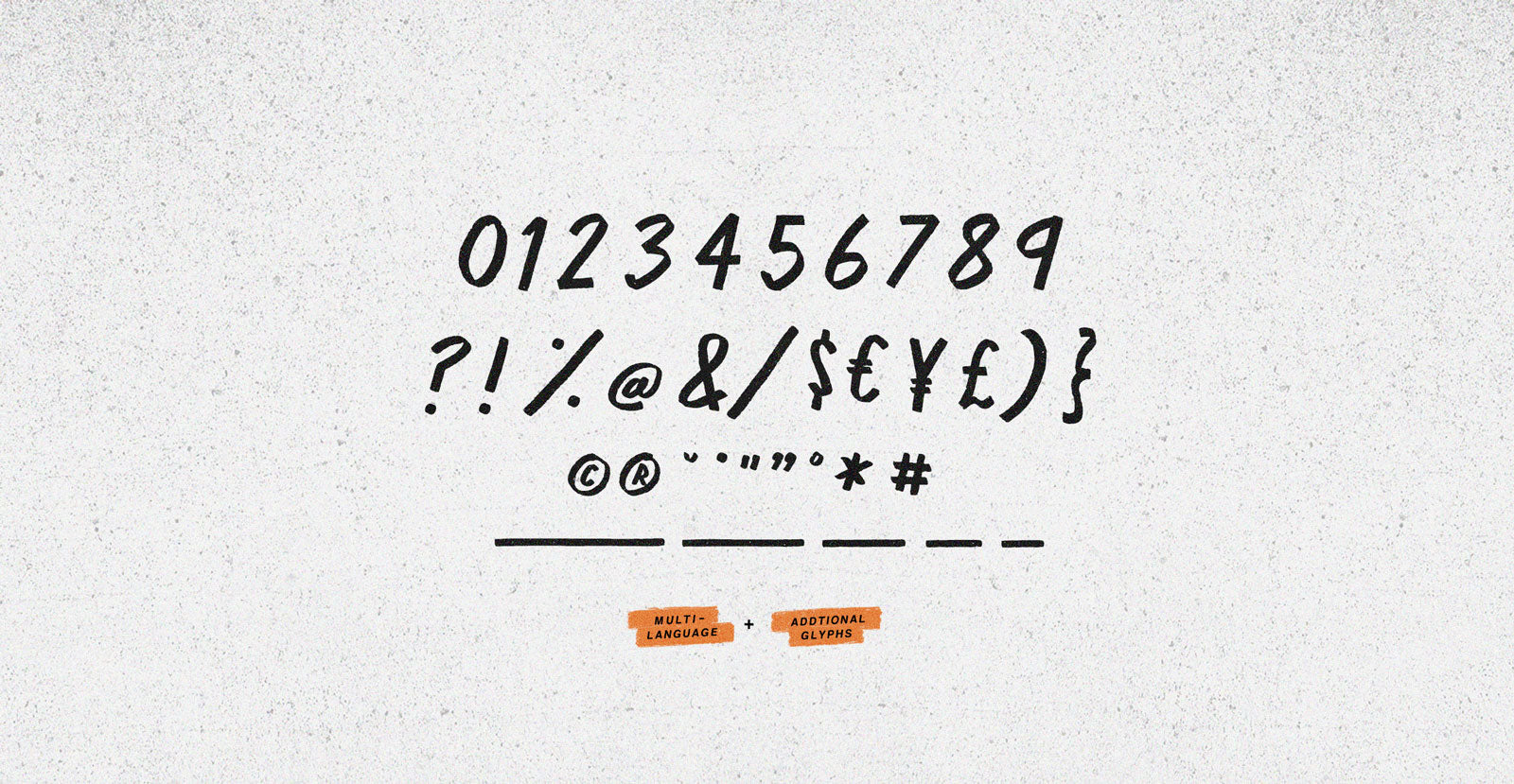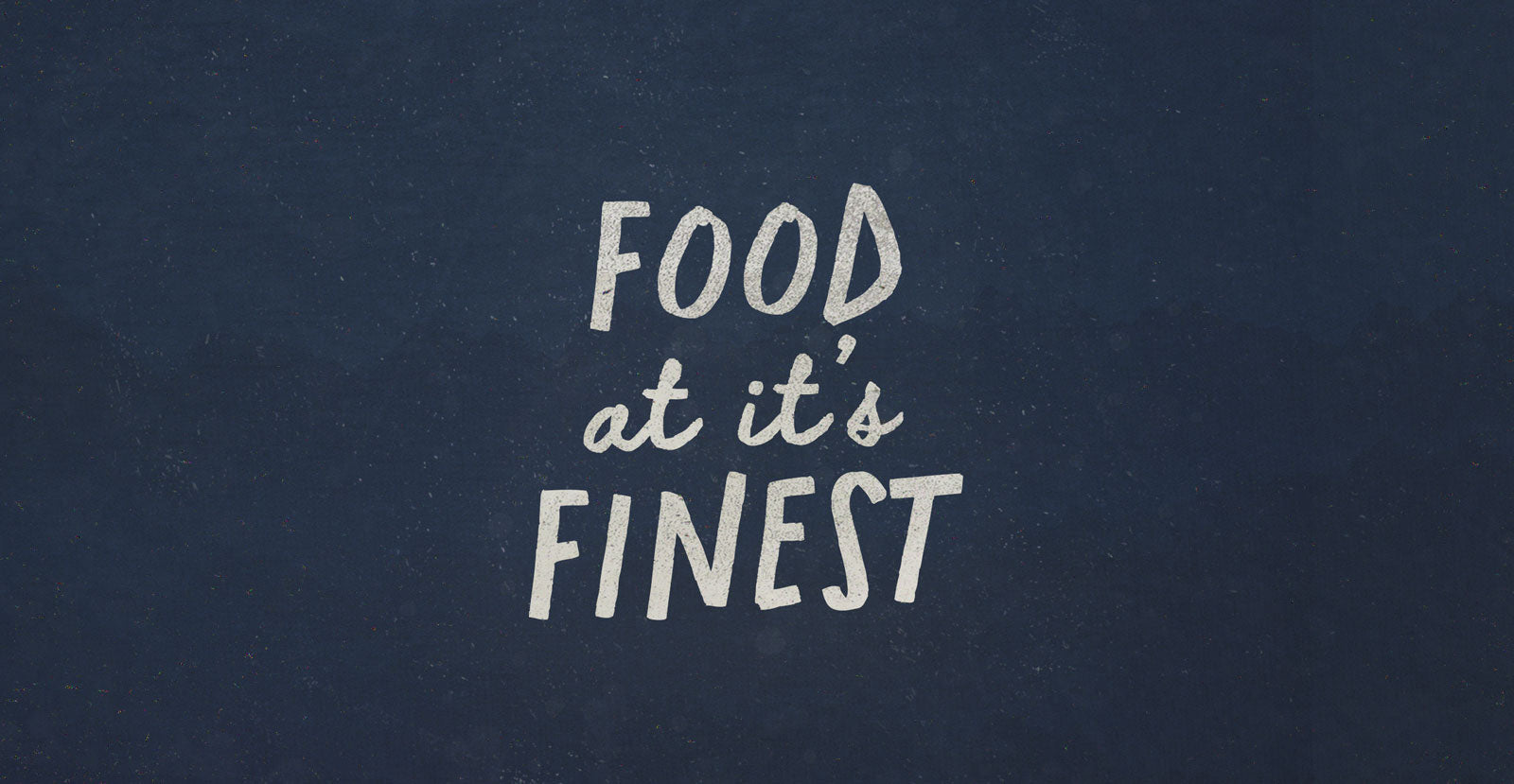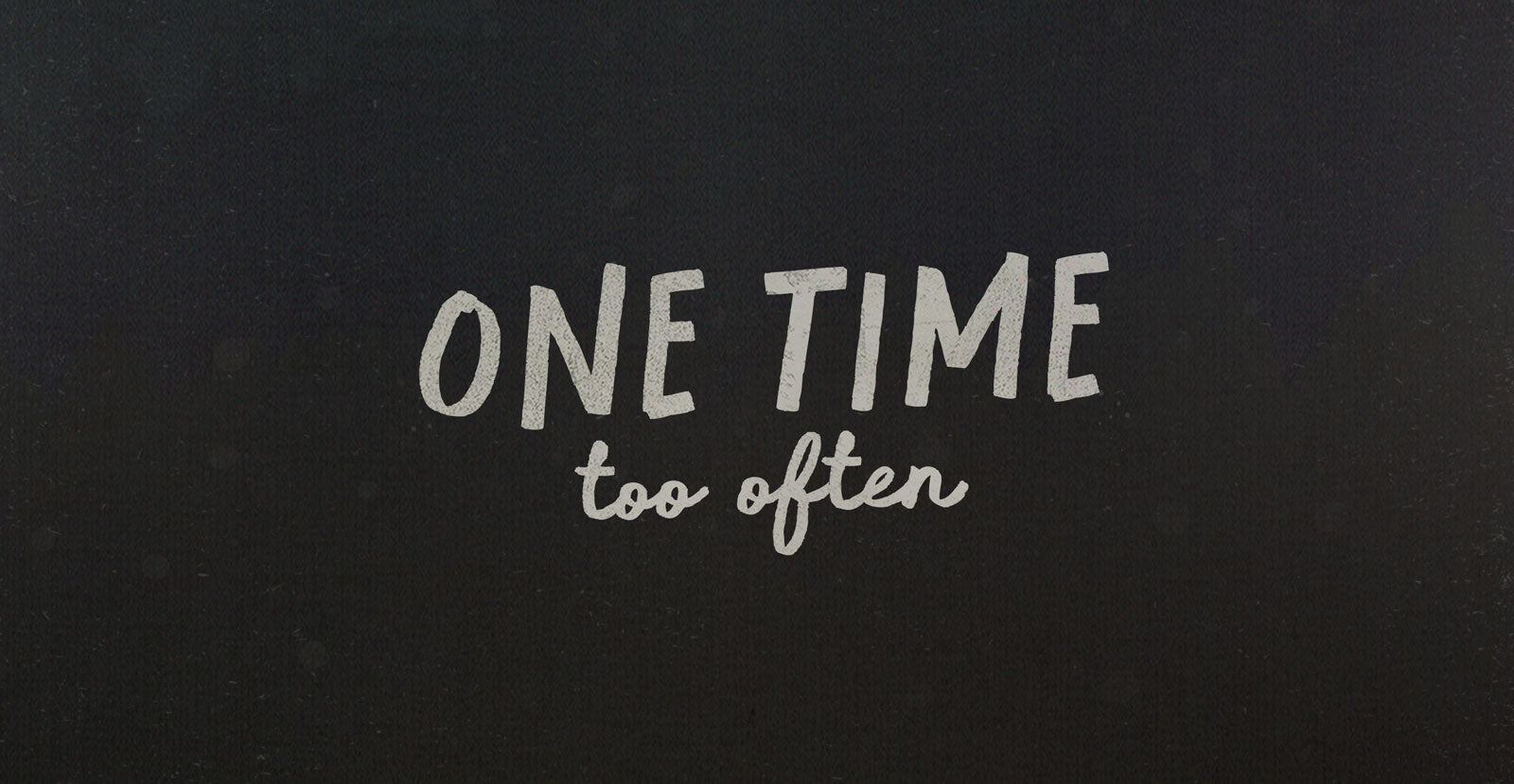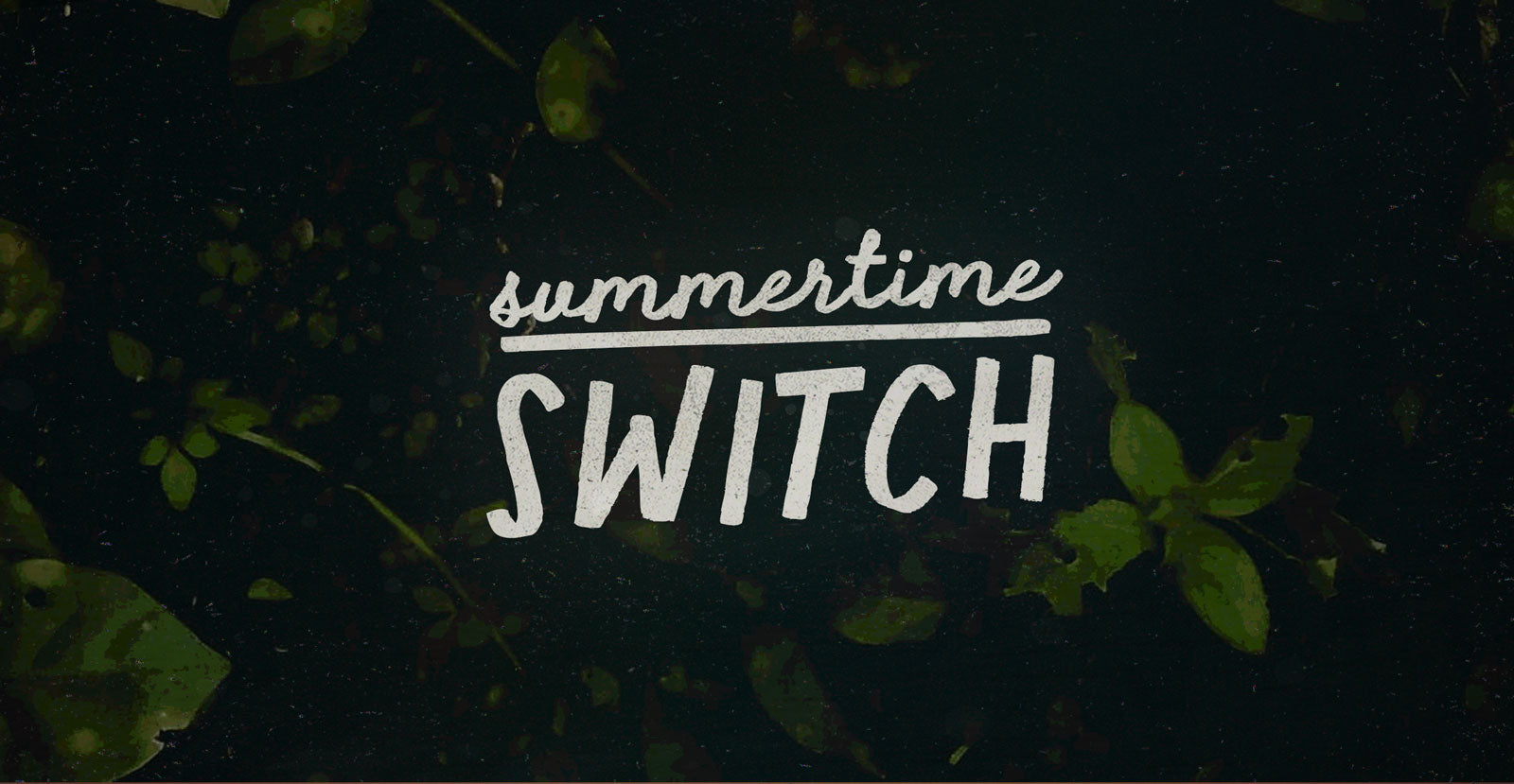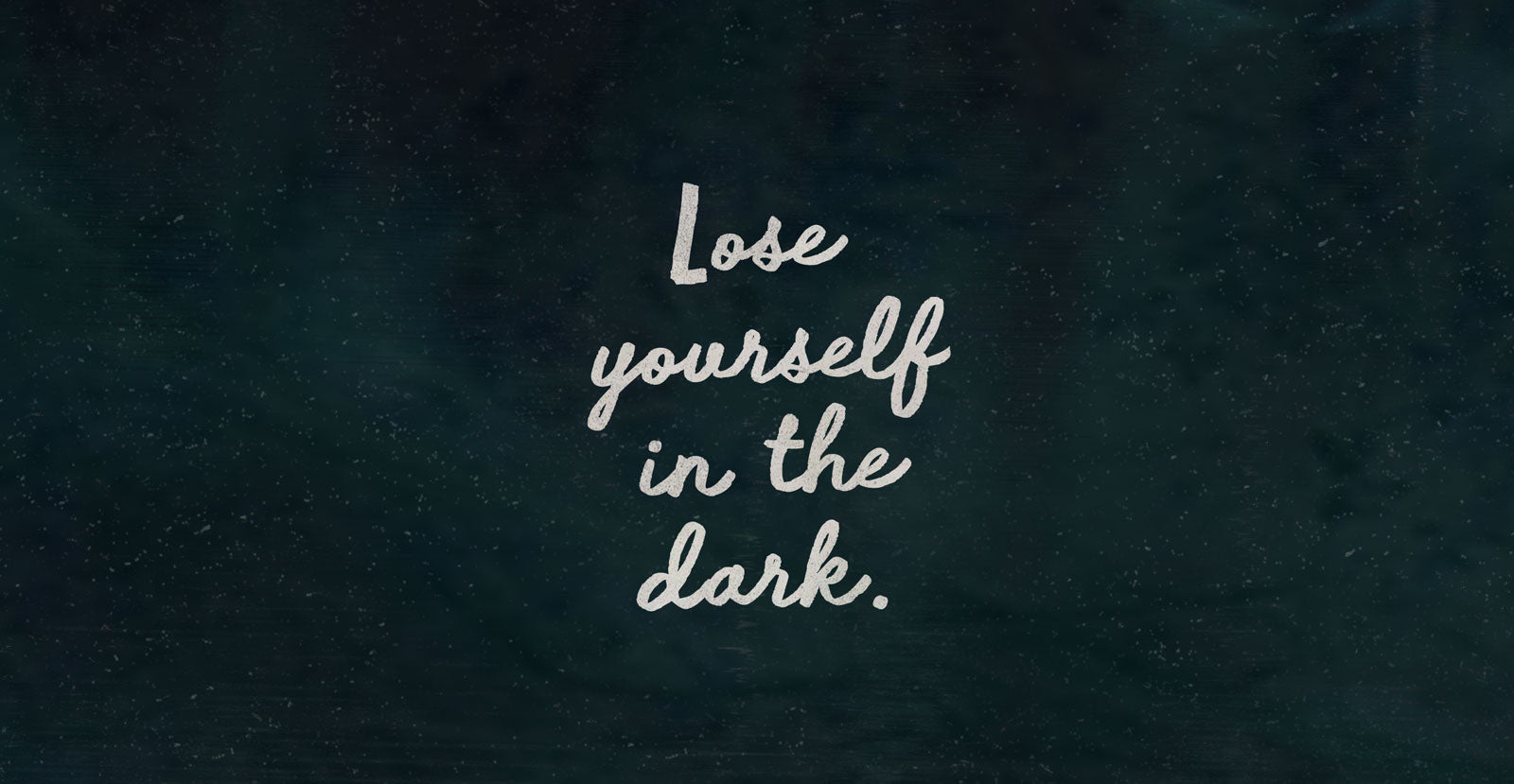
Fluid Motion
Traced commutes splash voids on viscous Eddies at a rain parade, cutting iridescent Fluid Motion off oil slicks in bike gutters. Downstream of obstacles vacuums get it in. Be Water, my friend—my drinking buddy—fill space like soggy sofas, pee pee to the precipice.